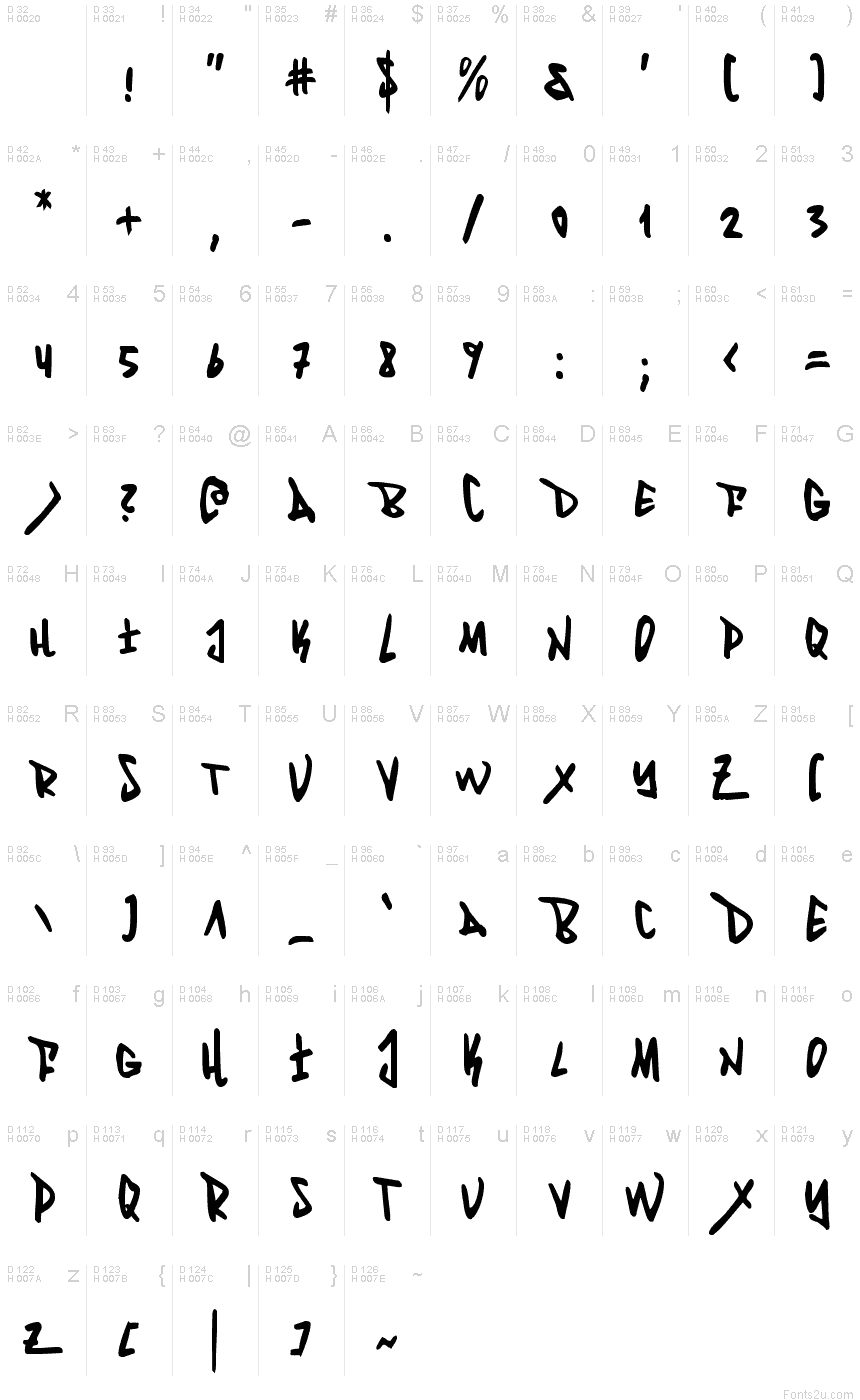
Fantom Condensed by Daniel Zadorozny of Iconian Fonts is a free brush display font with a raw, hand-painted silhouette. Its strokes shift between blunt swells and sharp tapers, giving the capitals a restless edge. Crooked joins and irregular widths keep the lettering deliberately unruly.
Music posters are its strongest setting, especially for punk, garage, or experimental acts. The rough forms suit that scene. It also fits skateboard merchandise, horror-game graphics, and rebellious youth branding, where letters become artwork.